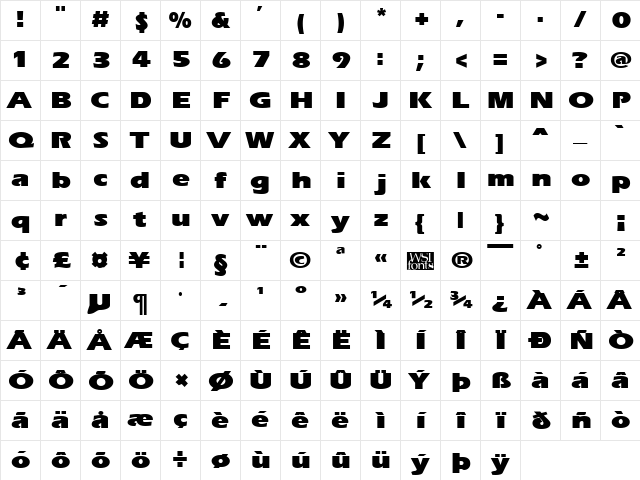
ErgoeBlackExpanded Regular
ErgoeBlackExpanded Family
Design Context for ErgoeBlackExpanded
ErgoeBlackExpanded is a composed and adaptable typeface that performs quietly and consistently across a wide range of design contexts.
Pro Tip: Use ErgoeBlackExpanded in both headline and body roles to test its range before committing to a single application.